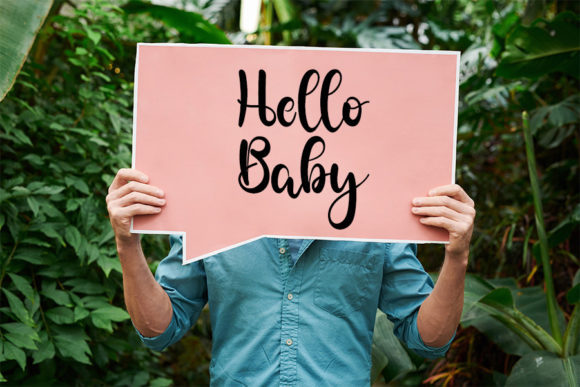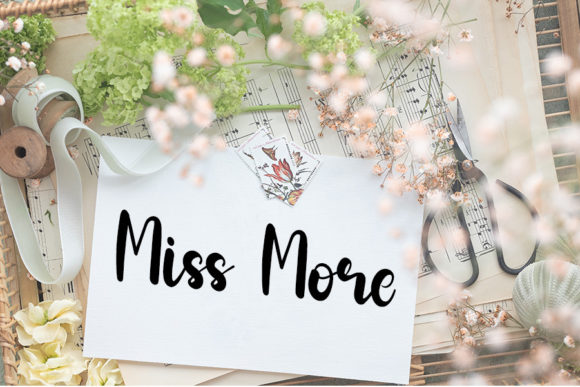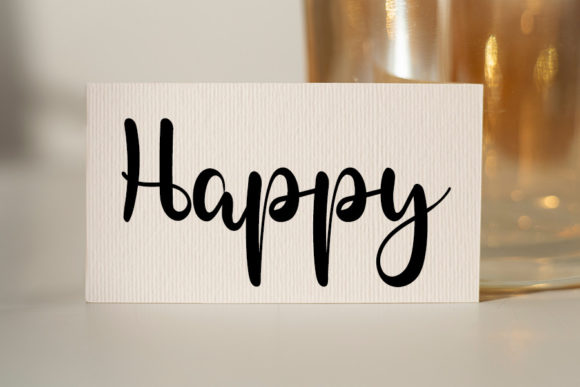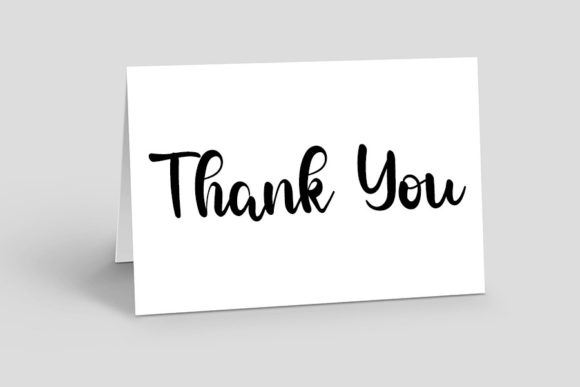
The Perfect Font for Your Creative Masterpiece
You’ve spent hours brainstorming, sketching, and perfecting your design, and now it’s time to bring it to life. You know exactly how you want it to look and feel, but something’s missing – that special touch that sets it apart from the rest. This is where the magic of typography comes in, and the Baby Sweet Font is here to make your work shine.
As a designer, you’re always on the lookout for fonts that exude elegance, sophistication, and a hint of whimsy. The Baby Sweet Font is a lovely handwritten font that achieves just that, with its curvy lines and delicate strokes. Whether you’re working on product packaging, branding projects, or magazine covers, this font is sure to elevate your designs and leave a lasting impression.
Baby Sweet Font Key Features
- Font Family: Baby Sweet Font is a unique, handwritten font designed to resemble baby’s scribbles.
- Unique Characteristics: The font features a playful, cursive design with irregular letterforms and varying line widths, giving it a personal and whimsical feel.
Baby Sweet Font Review
Overall, I’d say that the Baby Sweet Font is a cute and playful addition to any project. ✨ It’s perfect for creating a whimsical and child-friendly atmosphere, and the varied line weights and characters make it easy to use in a range of contexts.
Here are some things that I particularly like about this font:
- ✨ The soft, rounded edges give it a gentle and soothing feel.
- ✨ The extensive character set includes a wide range of punctuation and symbols, making it easy to use in everyday writing.
- ✨ The font is highly legible, even at small sizes.
- ⚠️ The font may not be suitable for formal or professional contexts, as it’s a bit too playful for those types of projects.
- ⚠️ The font’s rounded edges can make it difficult to read in certain lighting conditions or at small sizes.
Overall, I’d say that the Baby Sweet Font is a great choice for projects that require a playful and child-friendly atmosphere. Just be aware of its limitations, and use it wisely.
Tips for Getting the Most Out of Baby Sweet Font
For best results, use Baby Sweet Font in designs that require a playful, whimsical touch. This font is ideal for:
- Baby-related designs, such as nursery decor or baby announcements.
- Food and beverage branding, particularly for sweet treats.
- Wedding and event invitations that require a vintage or retro feel.